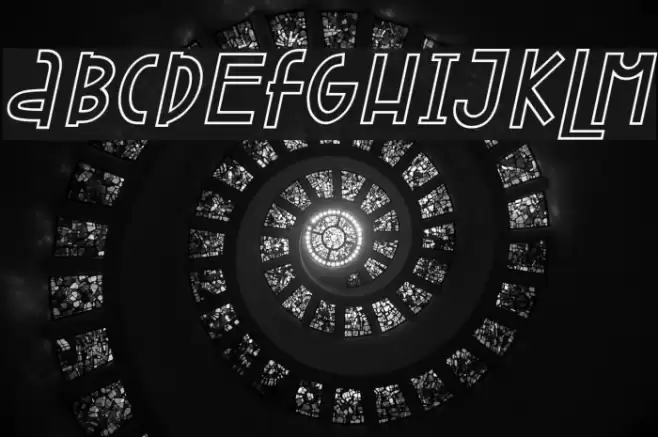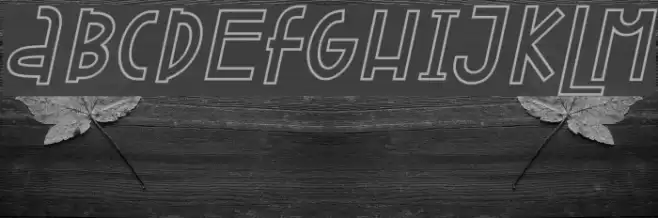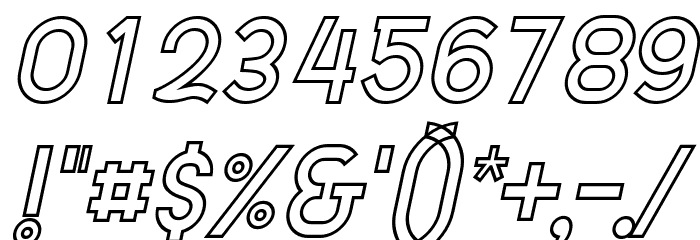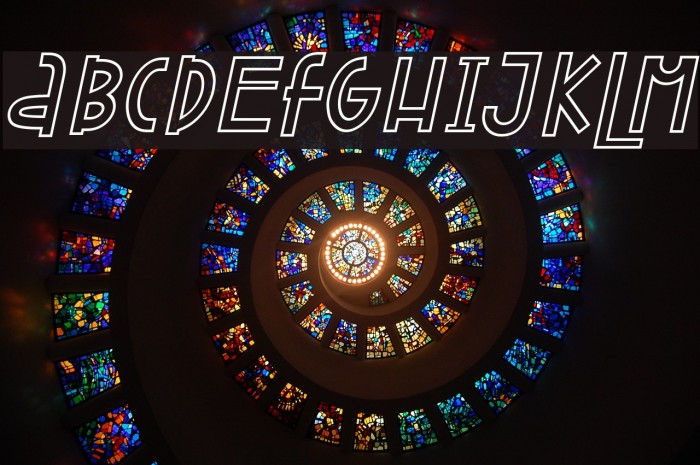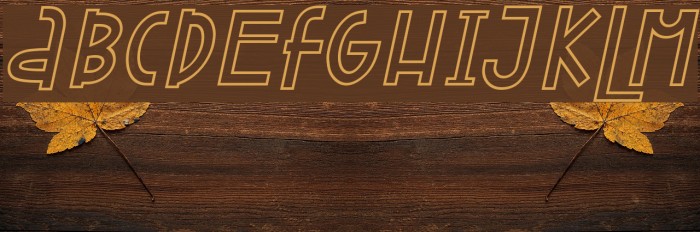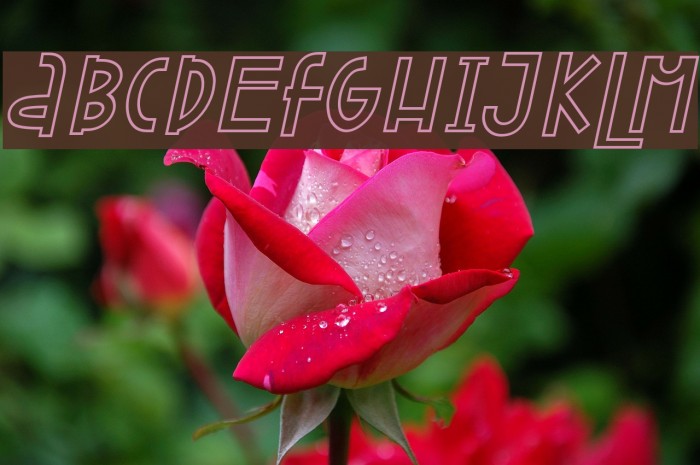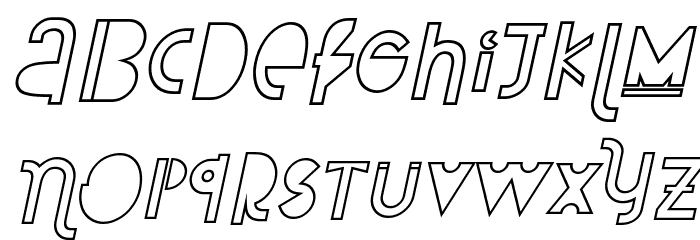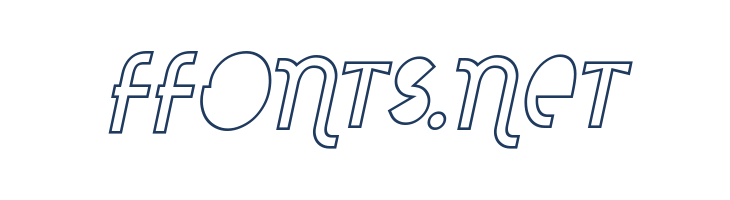
Attracted Monday Outline Italic Font
Attracted Monday Outline Italic Description
This font features a unique outline style with a modern and playful twist. The characters are italicized, giving them a dynamic and forward-leaning appearance. The strokes are consistent in width, creating a uniform look across all letters and numbers. The design incorporates both uppercase and lowercase letters, as well as a full set of numerals and special characters. The overall aesthetic is bold and eye-catching, making it suitable for creative and contemporary projects. The spacing between characters is normal, ensuring readability while maintaining its distinctive style.
A modern, italicized outline font with a playful and dynamic style from Uncategorized fonts.
- Proposed Projects: Ideal for creative projects such as posters, logos, and headlines that require a bold and modern touch.